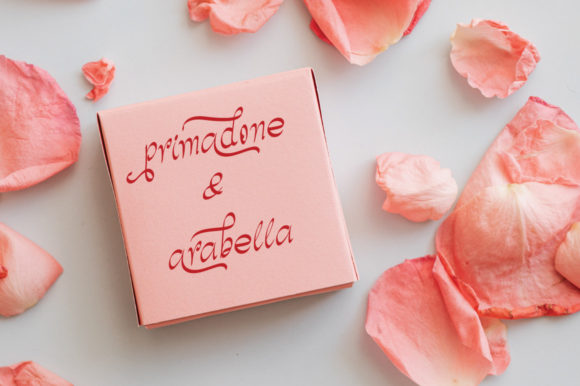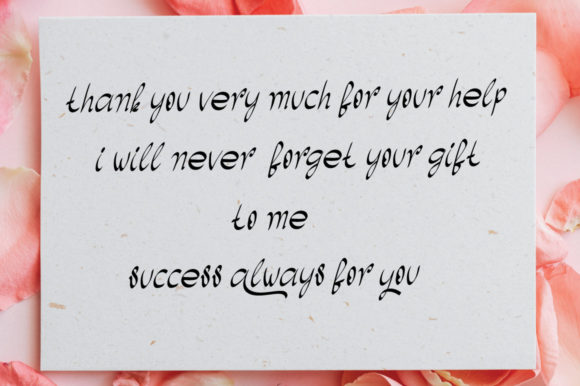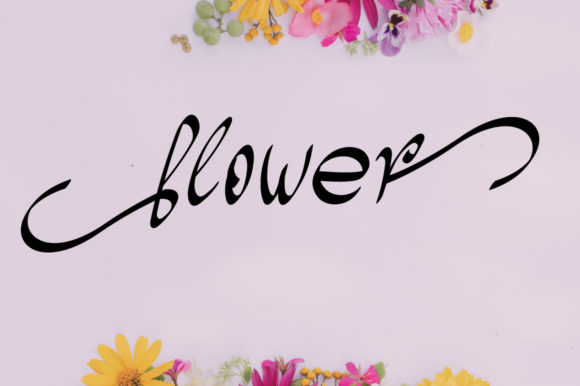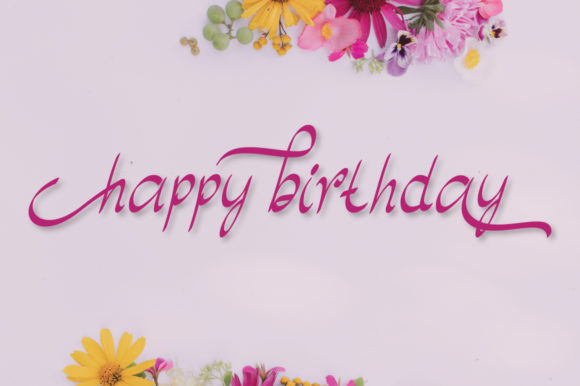
The Comfortable Font: Elevate Your Designs with Luxury and Elegance
Are you tired of using the same old fonts in your designs? Look no further than the Comfortable Font, a stunning calligraphy-style handwritten font that exudes luxury and elegance. This versatile font is perfect for designers and crafters looking to add a touch of sophistication to their work. In this article, we’ll dive into the features and benefits of the Comfortable Font, and explore how you can use it to take your designs to the next level.
A Font Fit for Royalty
The Comfortable Font is designed to impress, with fresh characters and expensive touches that will make your designs stand out from the crowd. Its calligraphy-style script is reminiscent of luxury brands and high-end designers, making it perfect for projects that require a touch of elegance. Whether you’re creating logos, wedding invitations, or business cards, this font is sure to make a statement.
One of the best things about the Comfortable Font is its versatility. You can use it for a wide range of design projects, including:
- Logos: Create a lasting impression with a custom logo that showcases your brand’s personality and style.
- Wedding Invitations: Make your special day even more memorable with beautifully designed invitations that set the tone for your wedding celebration.
- T-Shirts: Add a touch of elegance to your apparel designs with the Comfortable Font.
- Business Cards: Stand out in a crowded industry with professional-looking business cards that feature the Comfortable Font.
- Brochures: Create eye-catching brochures that showcase your products or services in style.
- Magazines: Add a touch of sophistication to your magazine designs with the Comfortable Font.
- Certificates: Create custom certificates that feature the Comfortable Font, perfect for awards, diplomas, and more.
- Posters: Make a statement with bold and eye-catching posters that feature the Comfortable Font.
The Comfortable Font is PUA (Private Use Area) encoded, which means you can access all of the glyphs and swashes with ease. This makes it easy to customize your designs and add unique touches that set your work apart. With the Comfortable Font, you can:
- Access a wide range of glyphs and swashes to add variety to your designs.
- Easily customize your text to fit your design style.
- Create unique and eye-catching designs that showcase your creativity.
Why Choose the Comfortable Font?
So why choose the Comfortable Font over other fonts on the market? Here are just a few reasons:
- Unique and Elegant Design: The Comfortable Font features a unique and elegant design that’s sure to impress.
- Versatility: You can use the Comfortable Font for a wide range of design projects, from logos to posters.
- Easy to Use: The Comfortable Font is PUA encoded, making it easy to access all of the glyphs and swashes.
- High-Quality Design: The Comfortable Font is designed with high-quality and luxury in mind, making it perfect for designers and crafters who want to create stunning work.
| Font Name | Comfortable Font |
| Author | Bahrul Studio |